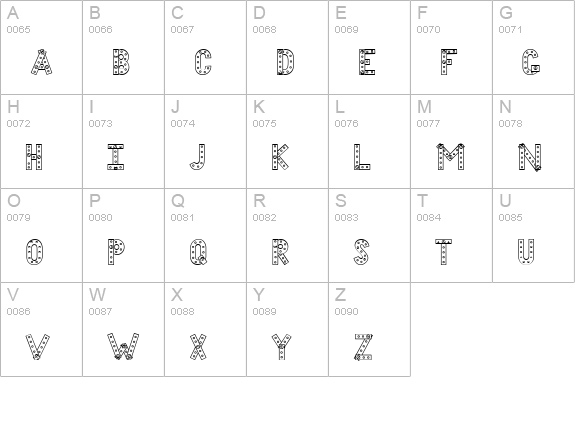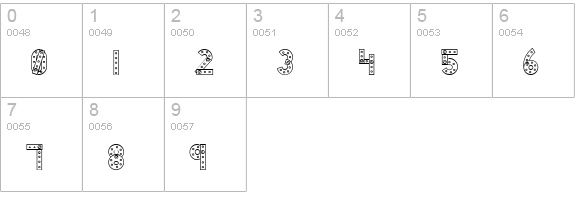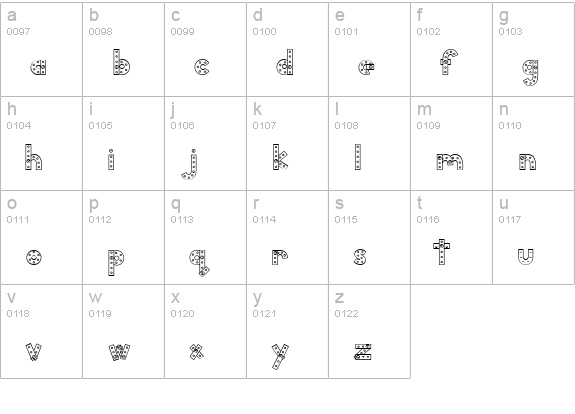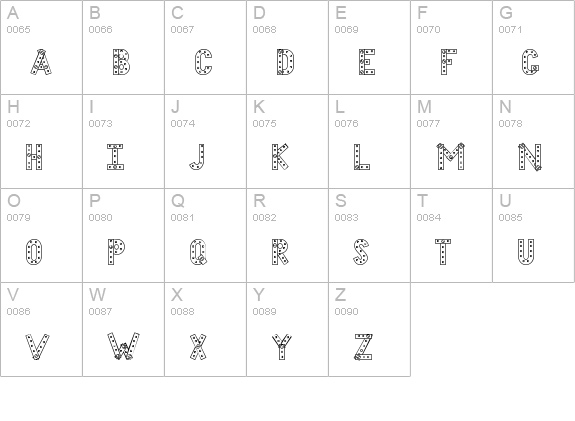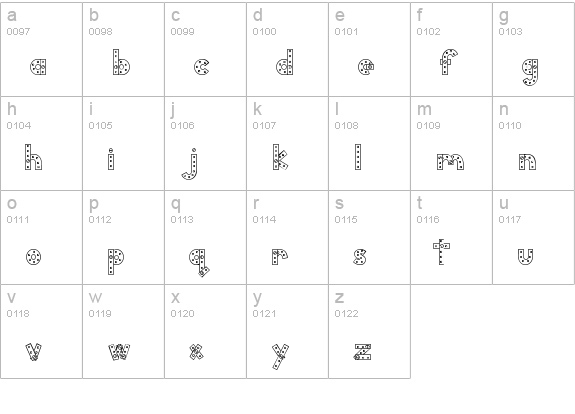
CK Bolted Font Details
CK Bolted font is a bold and stylish typeface that exudes a sense of strength and modernity. With its sharp edges and unique design, this font is perfect for making a statement in your designs. The industrial-inspired look of CK Bolted font makes it ideal for projects that require a touch of edginess and sophistication. What's even better is that CK Bolted font is available for free download at FontsMarket.com. This means you can easily add this eye-catching font to your collection without breaking the bank. Whether you're working on a graphic design project, branding, or any other creative endeavor, CK Bolted font is sure to make a bold impact. Download it today and elevate your designs with this striking typeface.